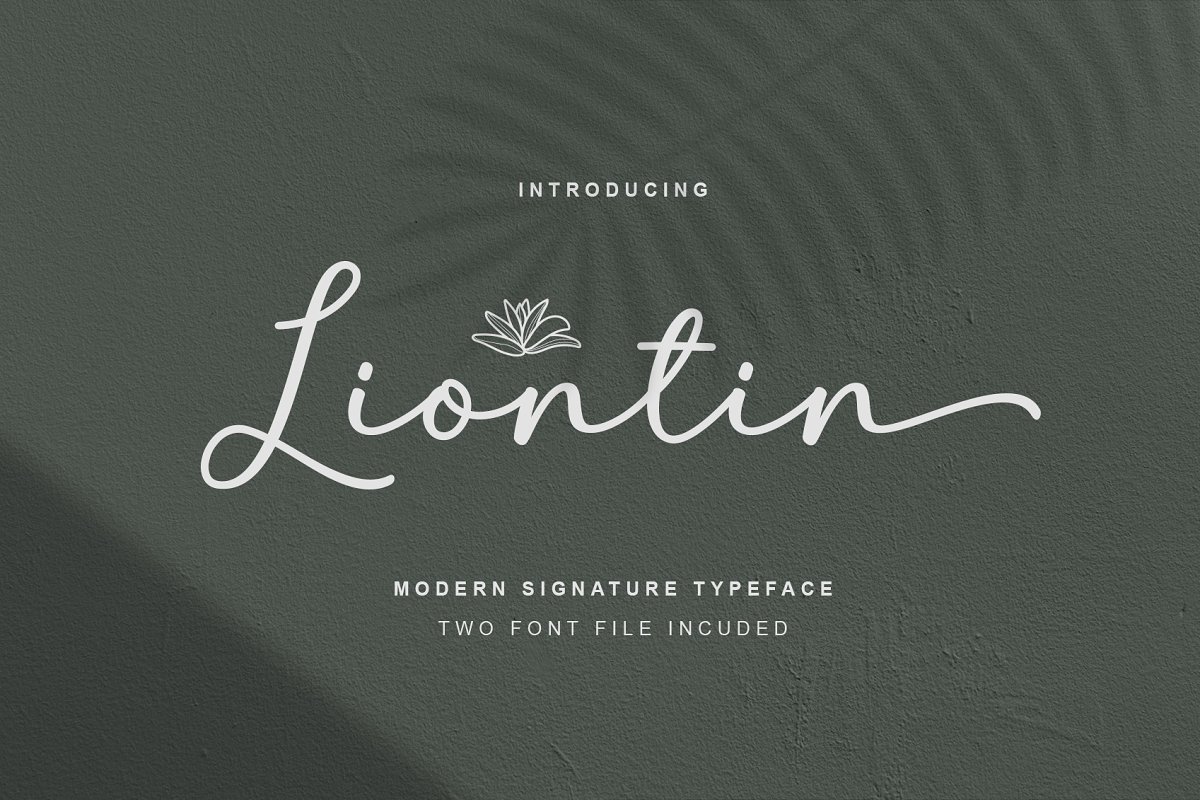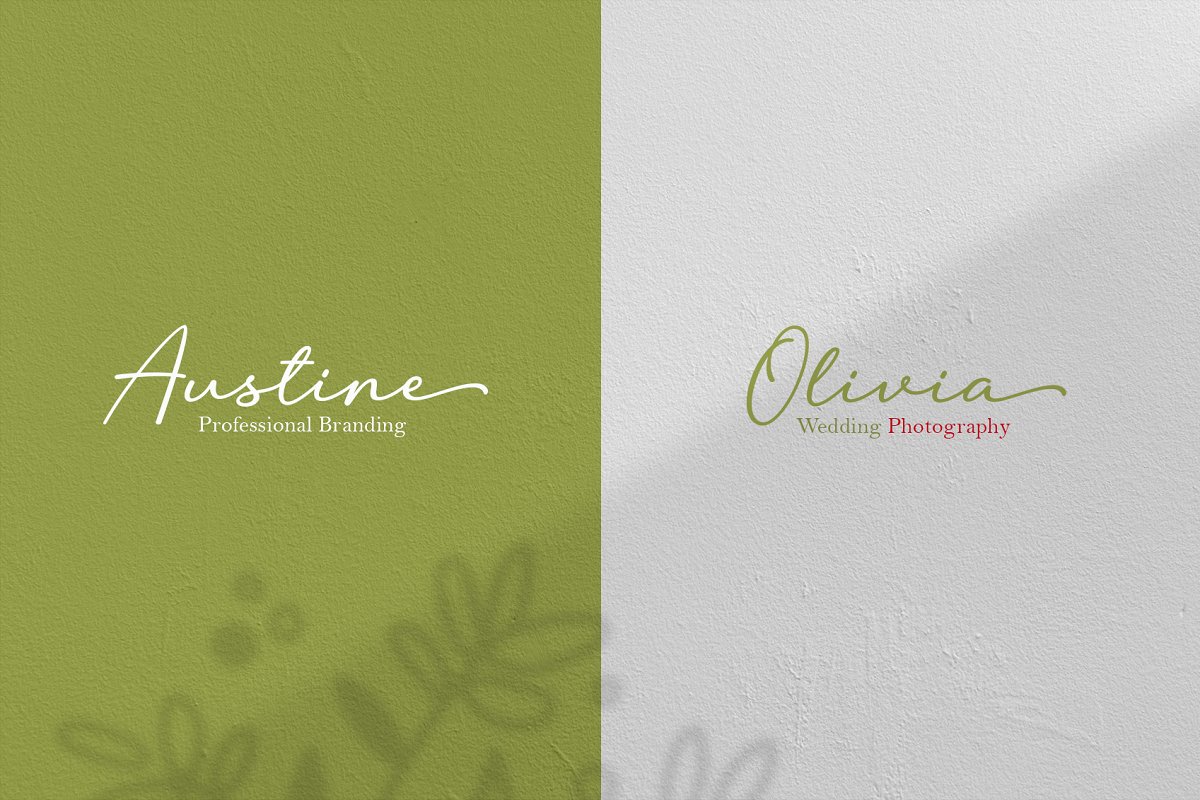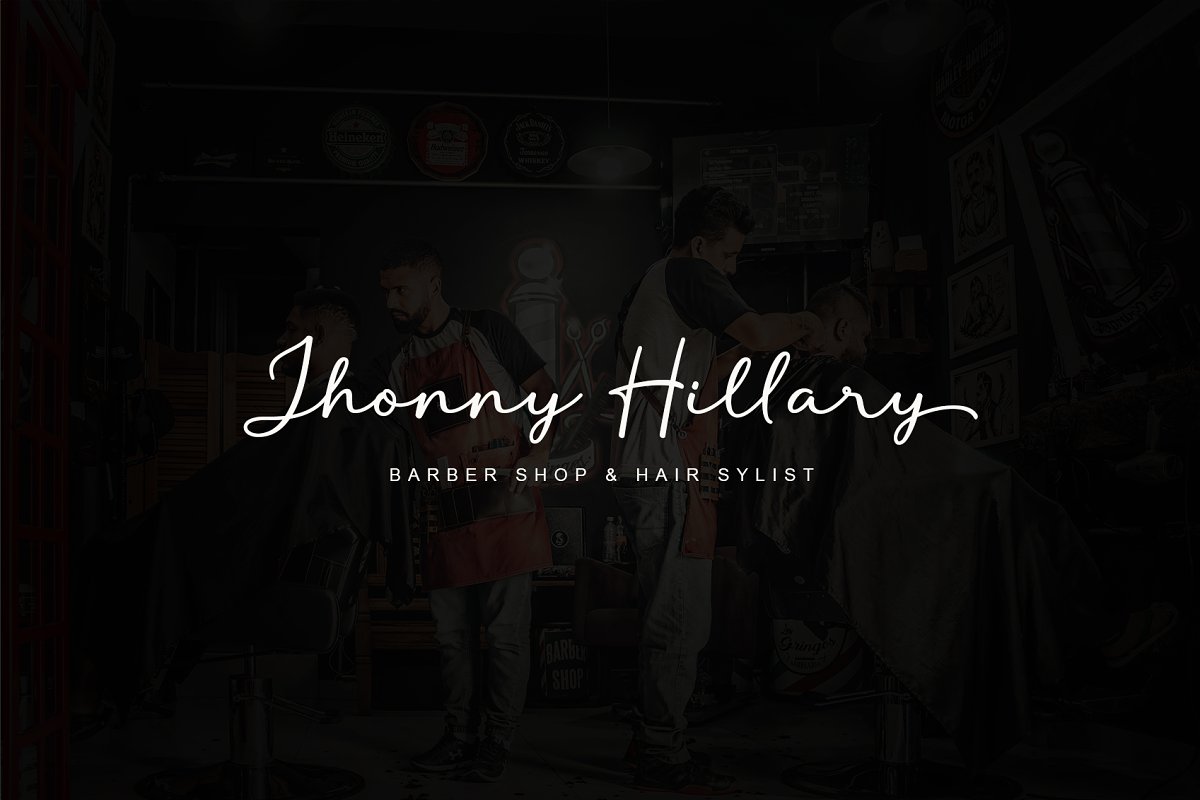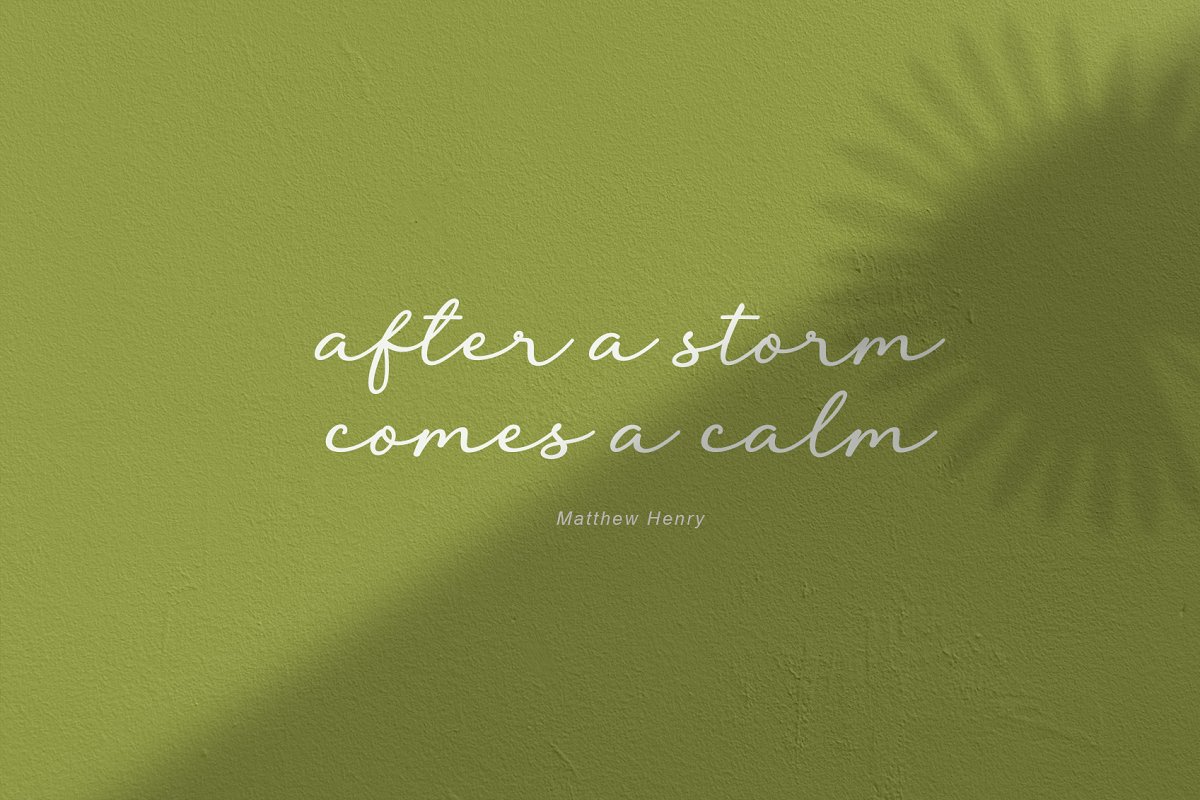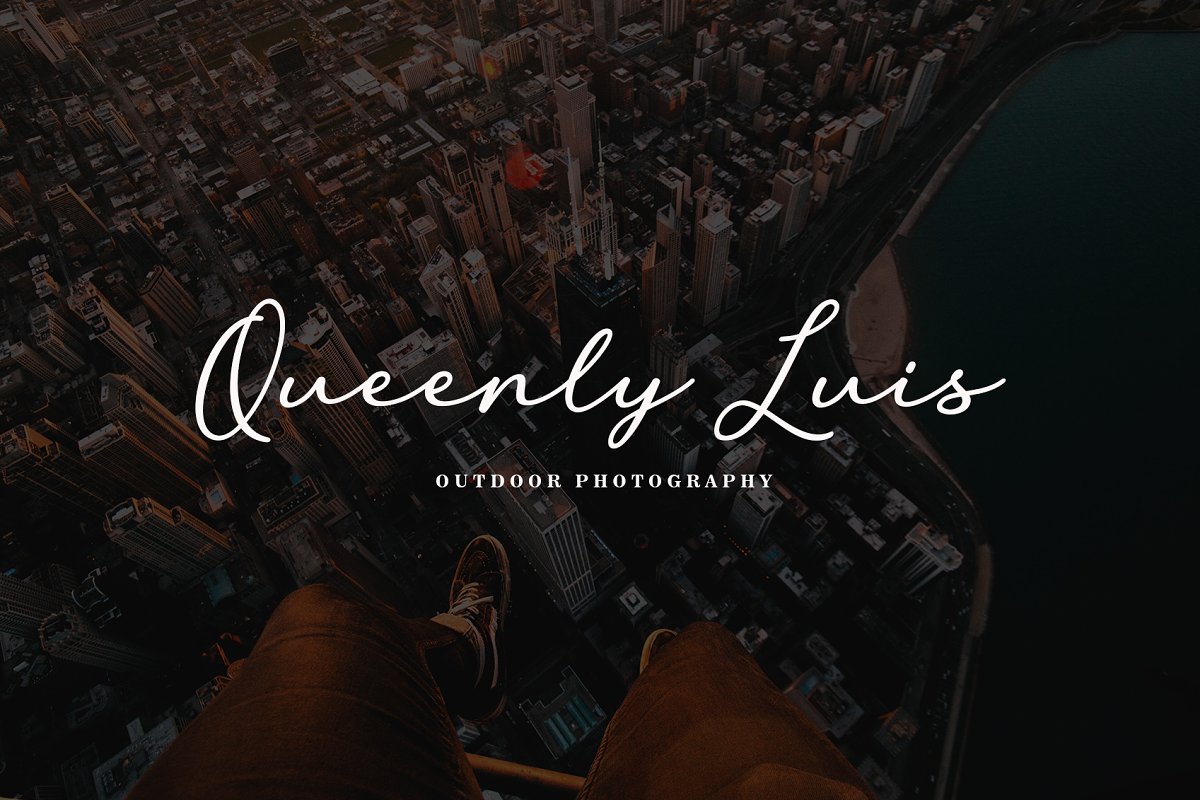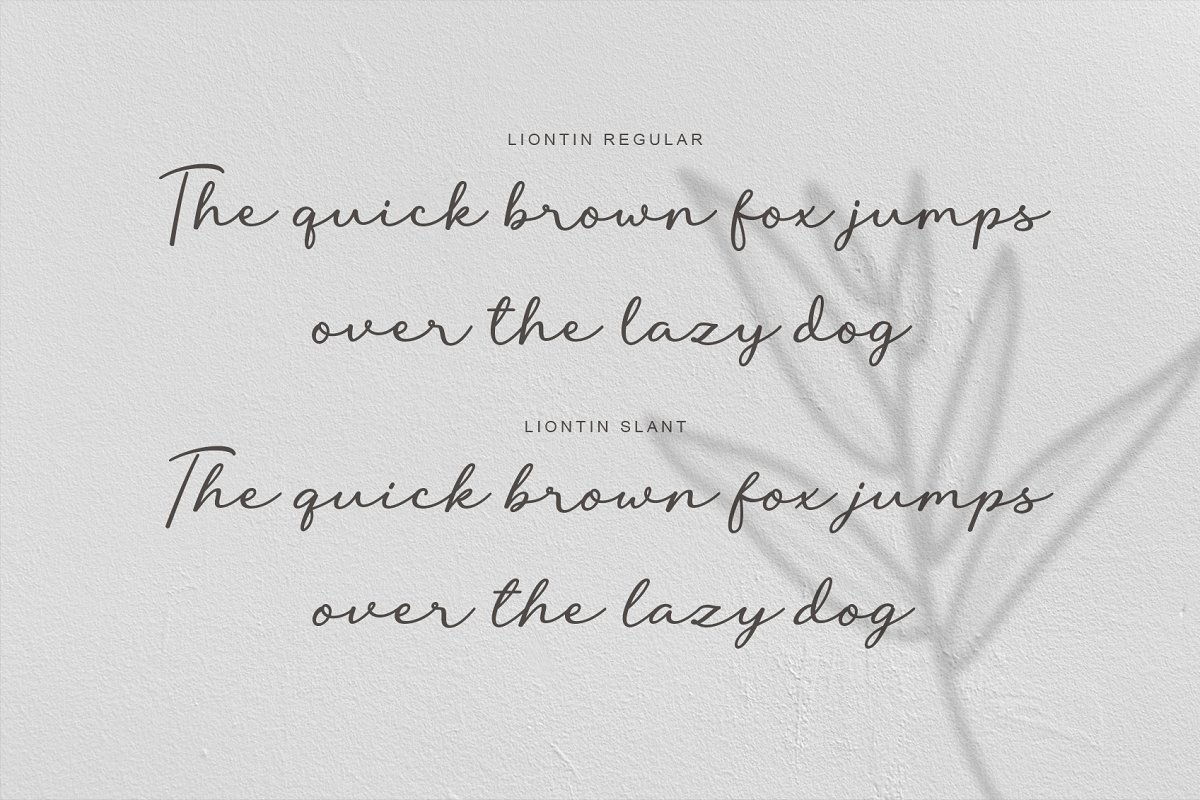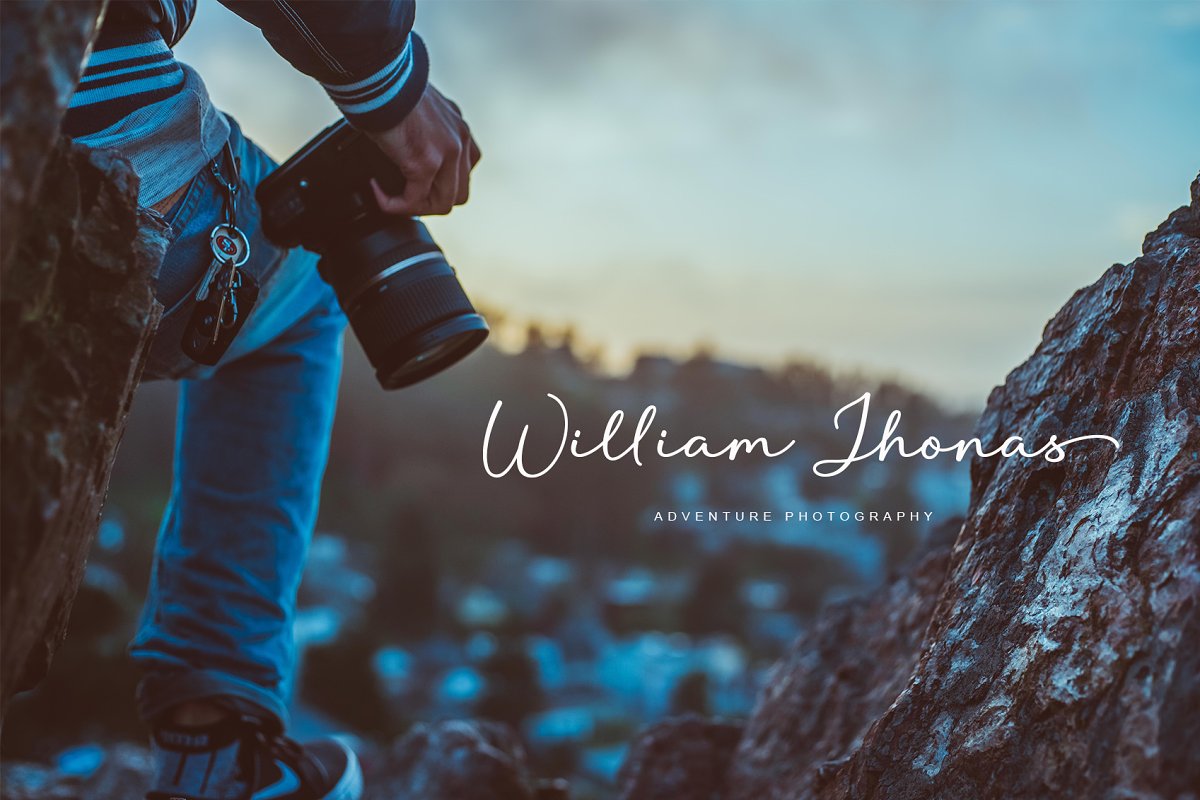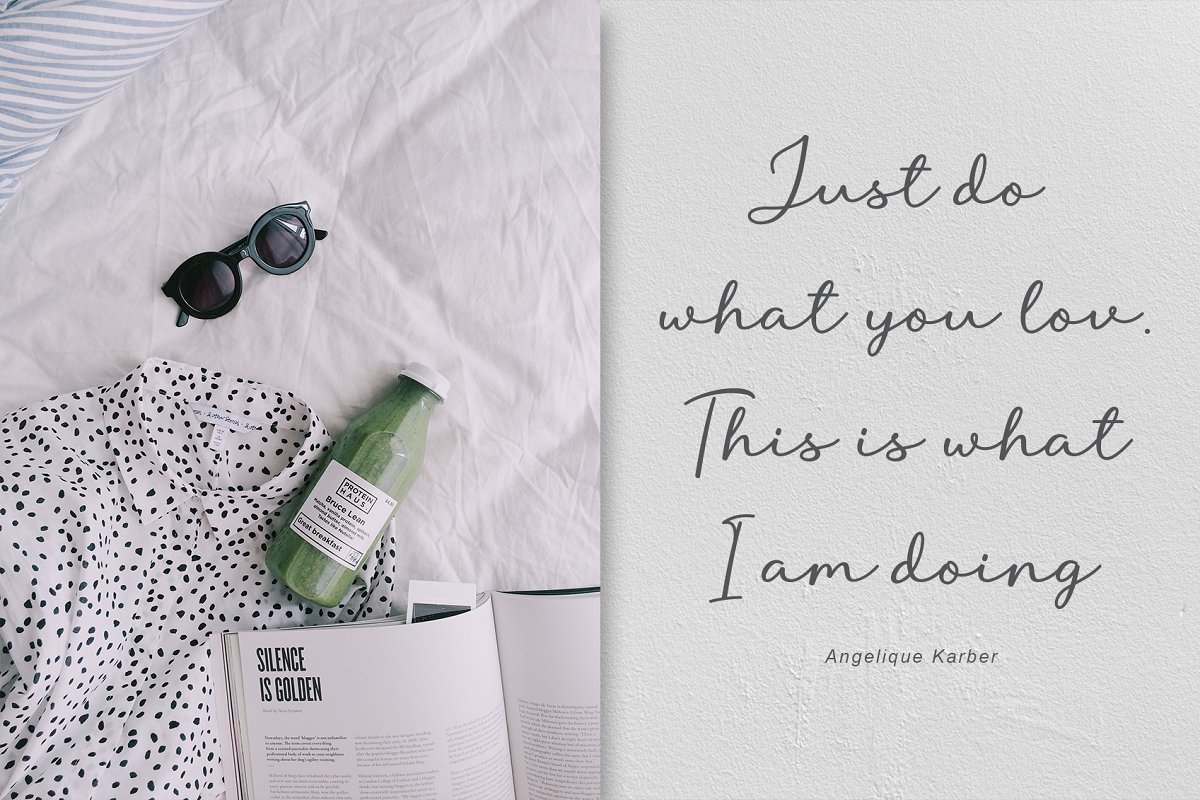
About the Liontin
Introducing!Liontin is modern signature typeface that perfect for photography, branding, signature, It is so beautiful and classy for your projects, This Font has given PUA code (specially coded fonts), So that all the alternate characters can easily be accessed in full by a craftsman or designer, What Includes?Liontin (, otf & ,ttf)Liontin Slant (